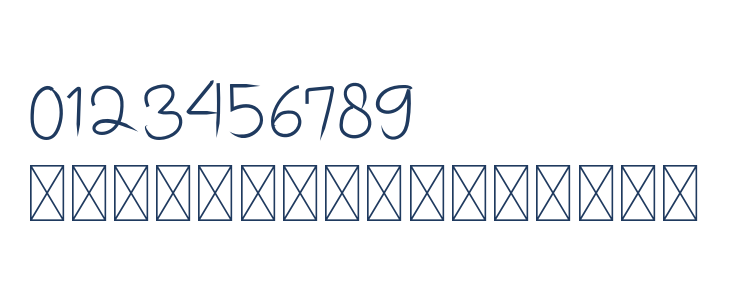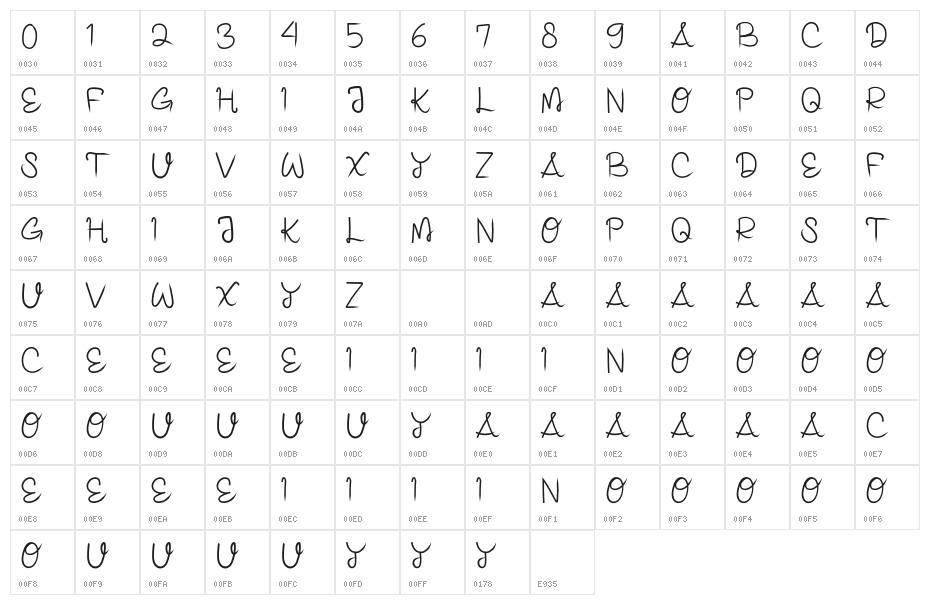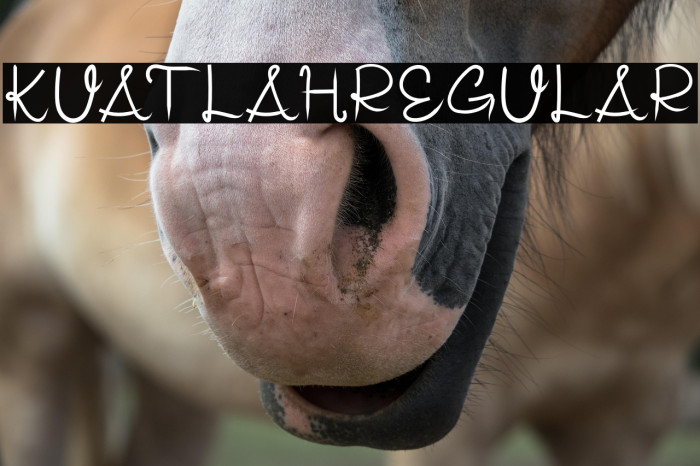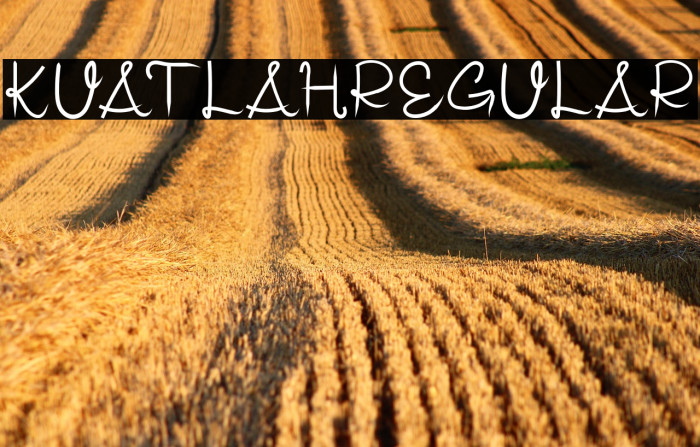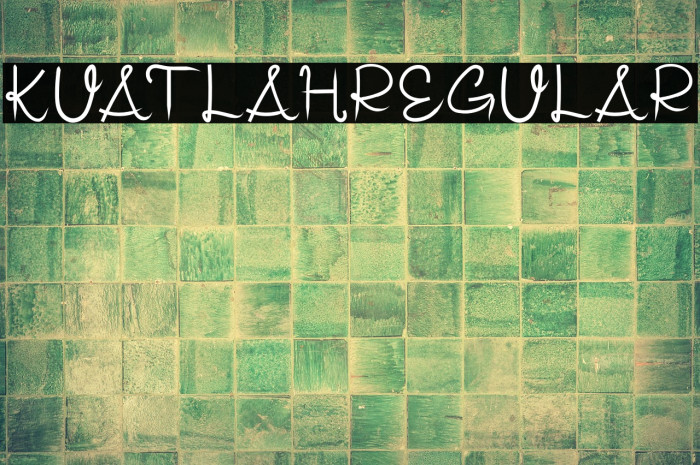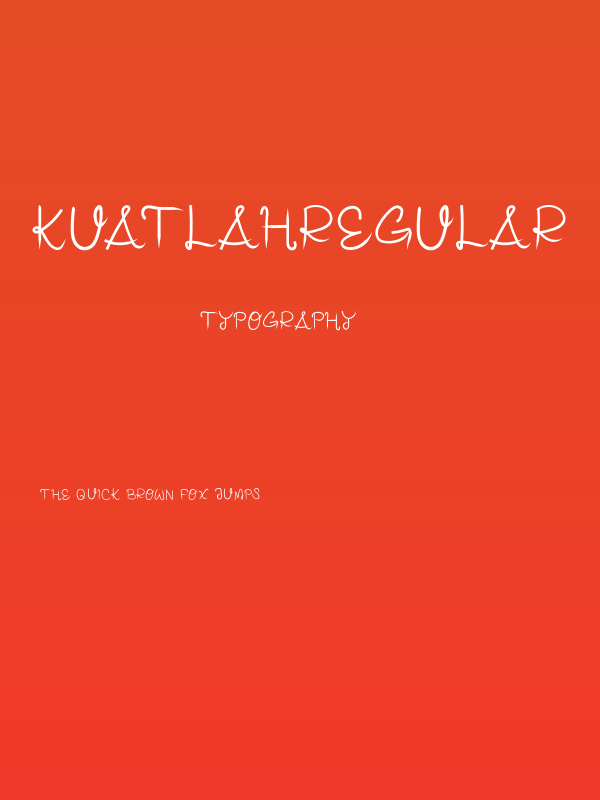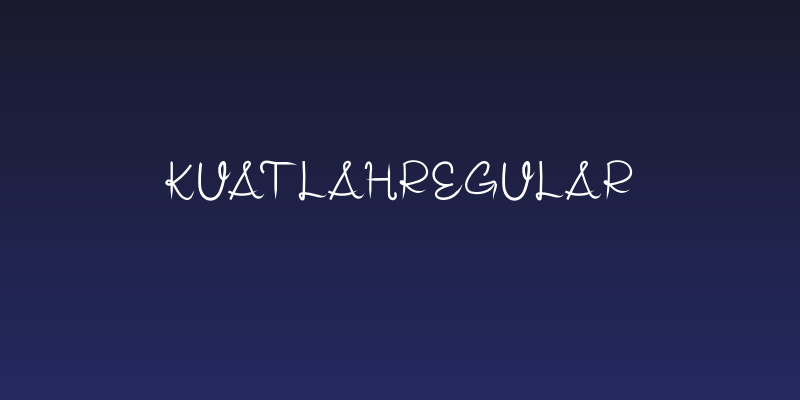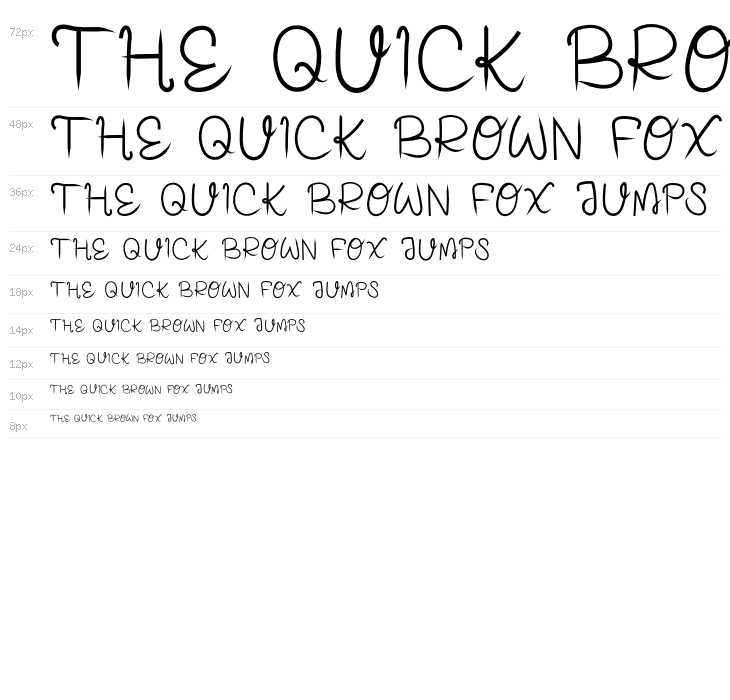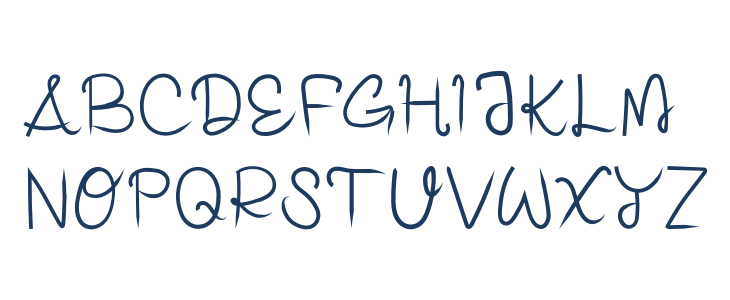
KUATLAHRegular Font
KUATLAHRegular Description
This font exhibits a playful and dynamic style with its handwritten appearance. The characters are characterized by their flowing, cursive-like strokes that give a sense of movement and energy. The uppercase letters have a unique flair with elongated and curved lines, while the lowercase letters maintain a consistent rhythm, enhancing readability. The numerals are bold and slightly rounded, complementing the overall aesthetic. Special characters are creatively designed, adding to the font's whimsical nature. This font is ideal for projects that require a touch of creativity and informality.